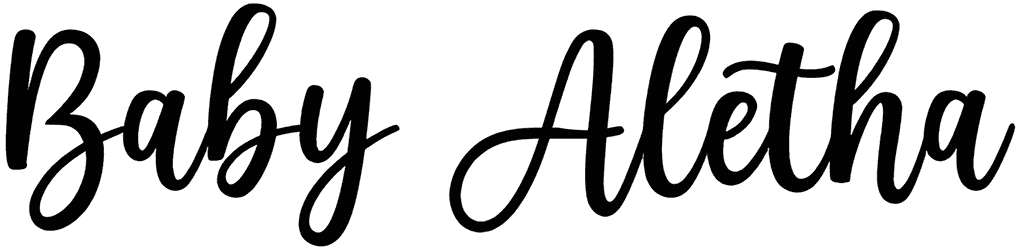
Baby Aletha Font
Baby Aletha is a soft and curvy hand-lettering font that can be a ravishing show for your texts. This cursive font has a lovely and elegant vibe for various designs and subjects. To have a melodic project from a logo to a creative illustration, set Baby Aletha on them, and create a cheerful mood.